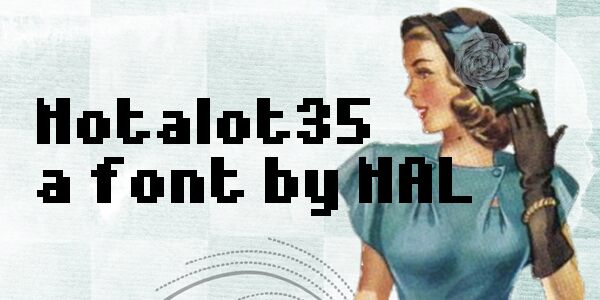
Notalot35 by NAL of FontStruct is a free pixel font with towering, tightly drawn letters and a hard-edged arcade profile. Its uneven widths, deep rectangular cut-ins, and occasional open joins give the alphabet a restless rhythm that recalls experimental game menus more than a conventional terminal face.
Digital graphics are its strongest medium, especially title screens, game interfaces, and electronic music artwork where the abrupt silhouettes can become part of the interface design. It will appeal most to indie game makers and designers working with retro-futurist club culture.